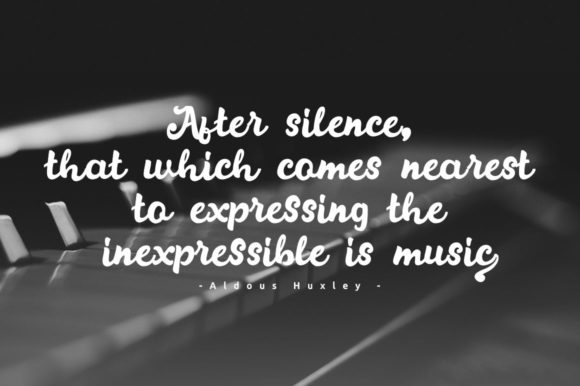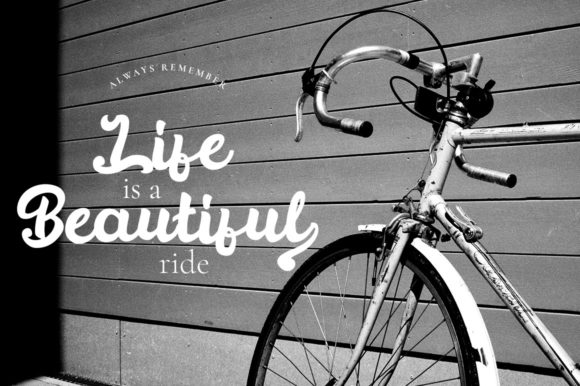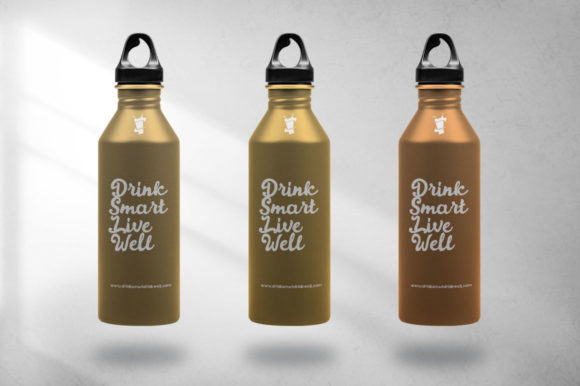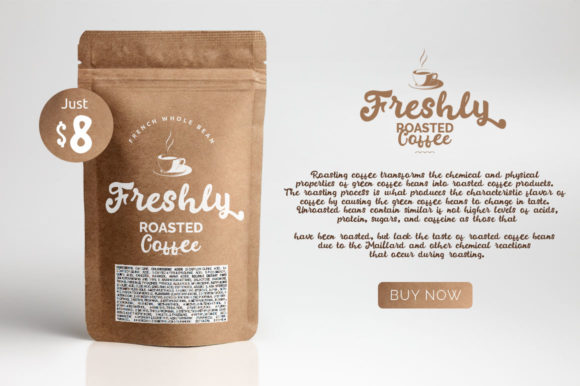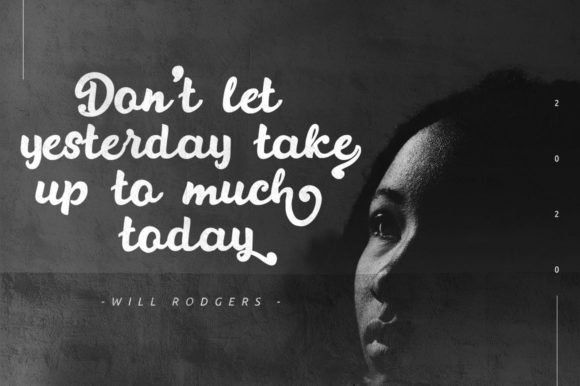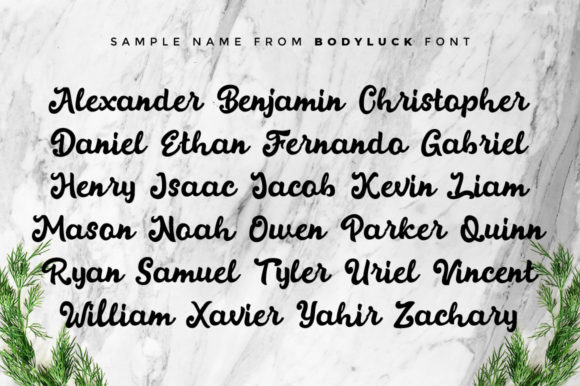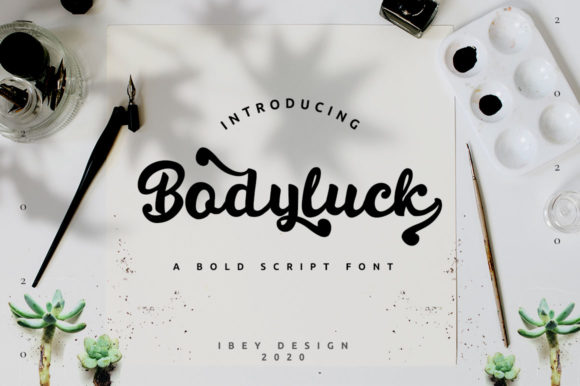
The Designer’s Delight: A Deep Dive into the Bodyluck Font
I’ll never forget the moment I stumbled upon the perfect font for a client’s wedding invitation project. I had been searching for what felt like an eternity, trying out font after font, but nothing seemed quite right. That was until I discovered Bodyluck – a flowing handwritten font that instantly captured the elegance and sophistication I was looking for. In this article, I’ll share my love for Bodyluck, its features, and how to make the most of it in your designs.
An Honest Review of Bodyluck
What I Love About Bodyluck ✨
• ✅ Elegant and flowing script with a timeless feel
• ✅ Perfect for projects that require a touch of sophistication and whimsy
• ✅ Distinctive style that sets it apart from other fonts
• ⚠️ May not be suitable for very formal or traditional projects
• ⚠️ Some users may find the font a bit too ornate for certain designs
Bodyluck comes with a range of OpenType features, glyphs, and stylistic alternates that can enhance your designs. Here are a few tips on how to make the most of these features:
• Use ligatures to create a more fluid and connected script.
• Experiment with stylistic alternates to add variation and interest to your text.
• Access glyphs to add decorative elements, such as swashes and flourishes.
The Story Behind Bodyluck
Bodyluck was designed by a team of typographers who wanted to create a font that would capture the elegance and sophistication of handwritten script. Inspired by classic calligraphy and modern typography, Bodyluck is a unique and timeless font that’s perfect for a wide range of design projects.
Q: What type of projects is Bodyluck best suited for?
A: Bodyluck is perfect for projects that require a touch of elegance and sophistication, such as wedding invitations, branding, and packaging.
Q: Is Bodyluck a difficult font to read?
A: No, Bodyluck is highly legible, even at smaller font sizes, making it perfect for body text and headlines.
Q: Can I use Bodyluck with other fonts?
A: Yes, Bodyluck pairs well with a range of fonts, from serif and sans-serif fonts to other script fonts. Experiment with different combinations to find the perfect pairing for your project.